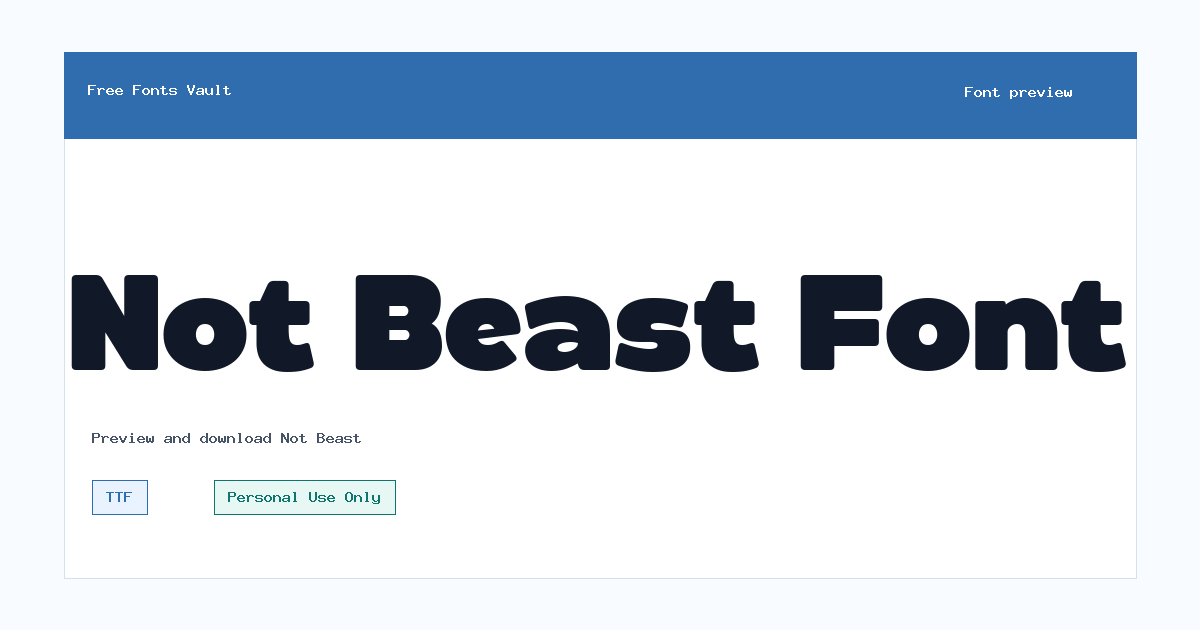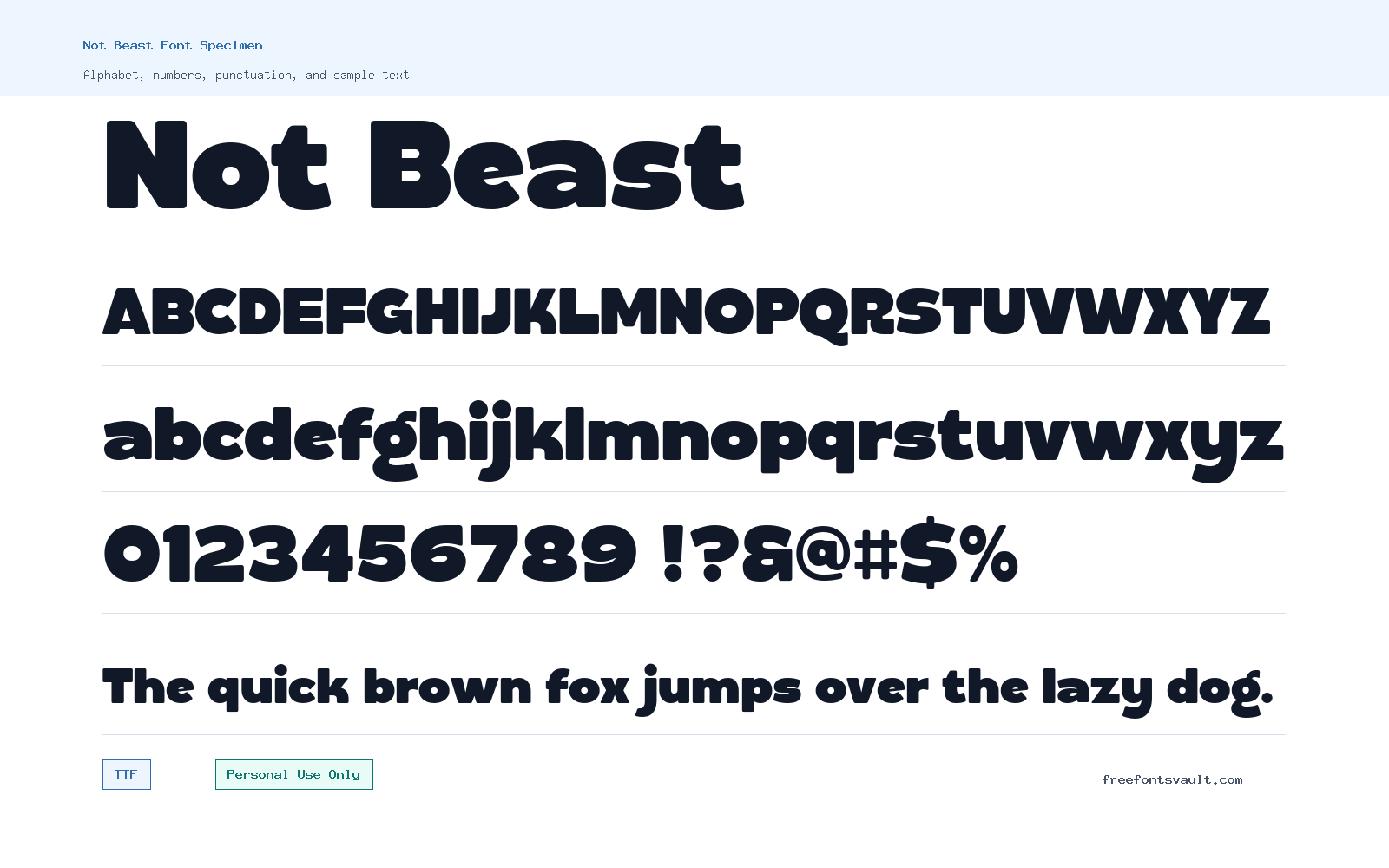
Not Beast
- Designer Aswangga
- Foundry Salamahtype
Not Beast is a display font by Aswangga, released through Salamahtype, with a Personal Use Only license. It is best approached as a headline or short-text font rather than a long-reading typeface.
Not Beast is built for attention-focused typography. Because it is a display font, use the preview tool to judge its shape, spacing, and mood at the exact size you need. Fonts in this category usually work best when the words are short and the layout gives the letters enough room to stand out. Try it with names, titles, event text, social graphics, thumbnails, posters, or a bold wordmark draft before deciding if it fits your project.
- Display-style font intended for short, attention-grabbing text
- Poster titles, thumbnails, covers, and social media graphics
- Short logos, name treatments, event text, and decorative headings
Not Beast is credited to Aswangga, with Salamahtype listed as the foundry.
Use Not Beast for short words or brief headings where style matters more than long-form readability. Pair it with a plain sans serif or serif for body text so the display lettering does not have to carry paragraphs.
Who designed Not Beast?
The font is credited to Aswangga, and Salamahtype is listed as the foundry.
What kinds of projects fit Not Beast best?
Use it for short display text such as titles, posters, covers, thumbnails, logos, and decorative headings. Test readability before using it at small sizes.
Should I use Not Beast for paragraphs?
It is better suited to short text. For paragraphs, pair it with a simpler body font and keep Not Beast for headlines or accents.